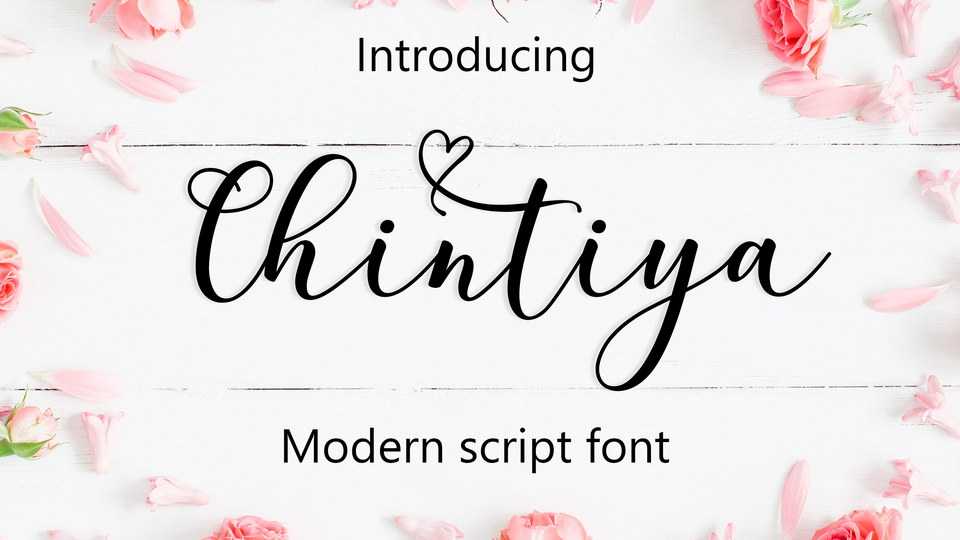
Download Chintiya font, a fabulous handwritten typeface that features a varying baseline and smooth lines. It’s perfect for wedding invitations, greeting cards, branding, product packaging and much more.
Designer: Amar Lettering